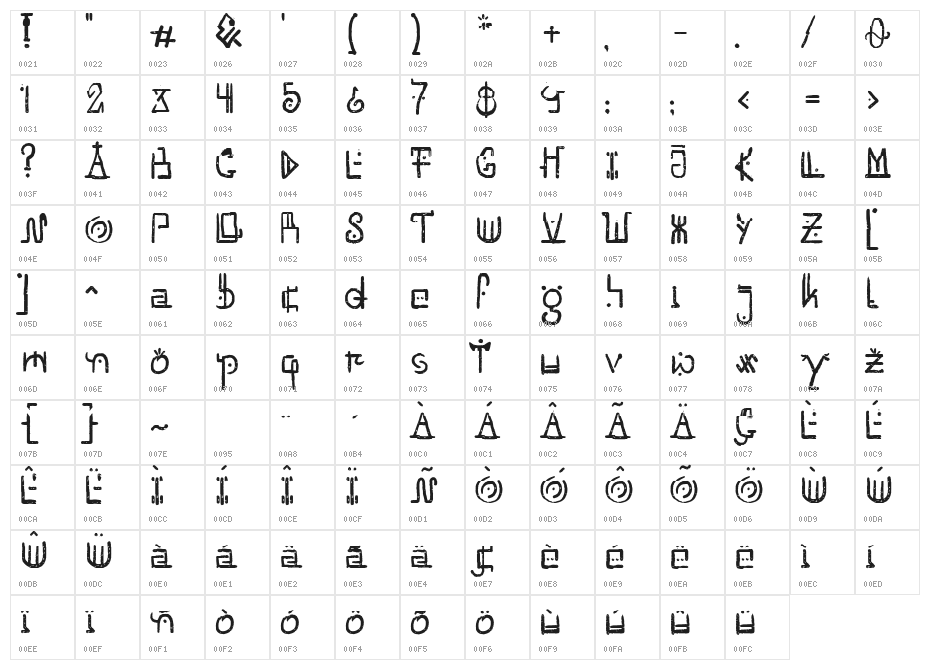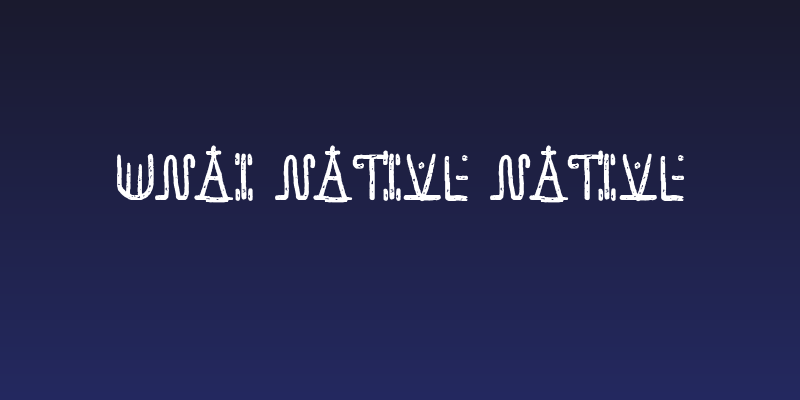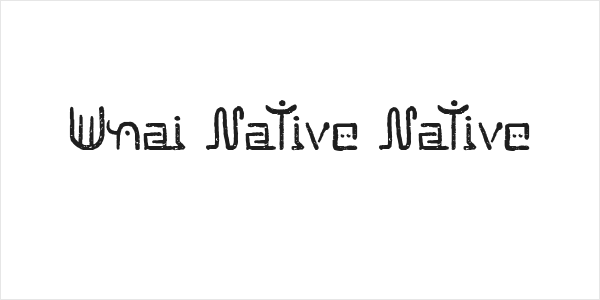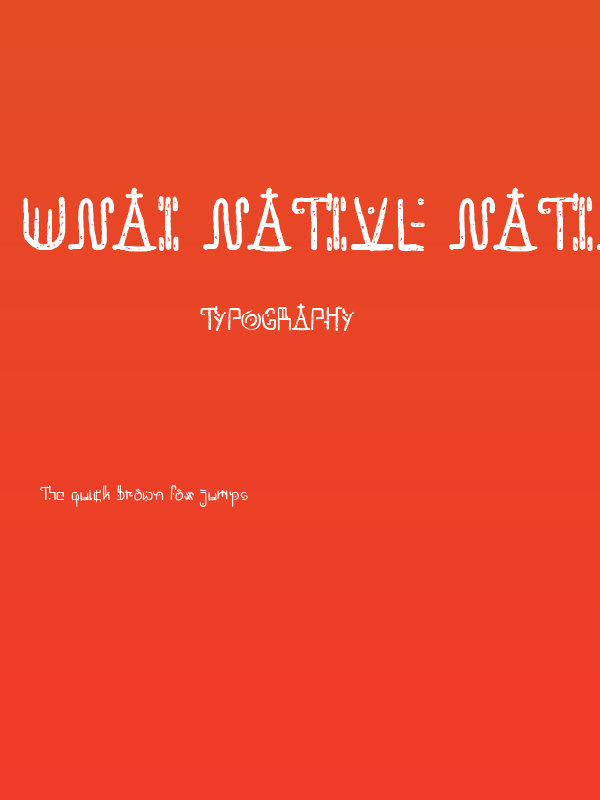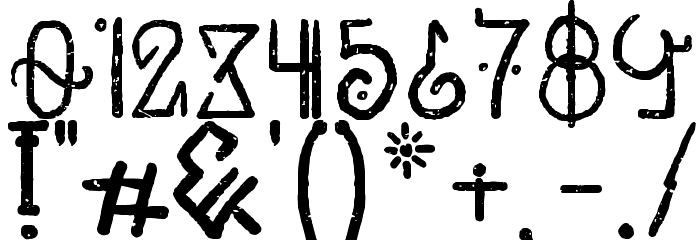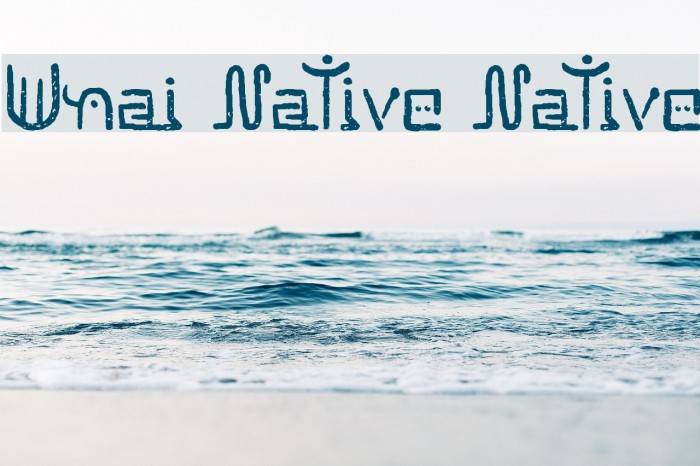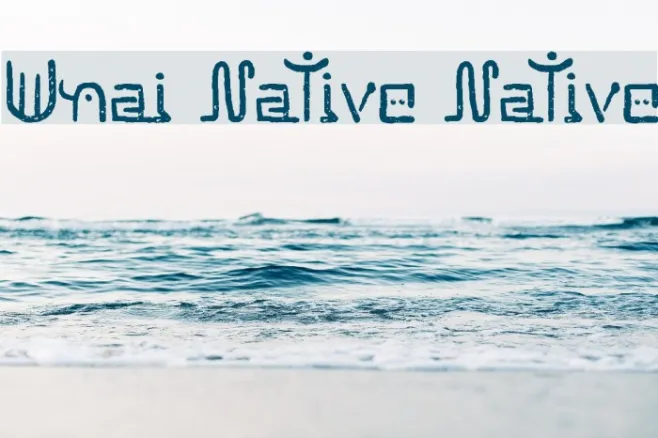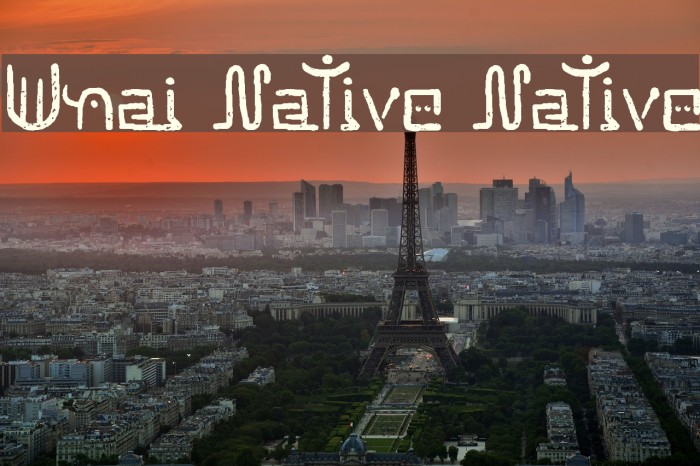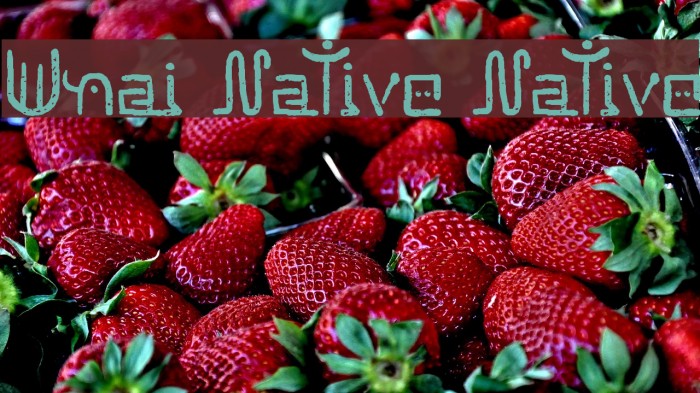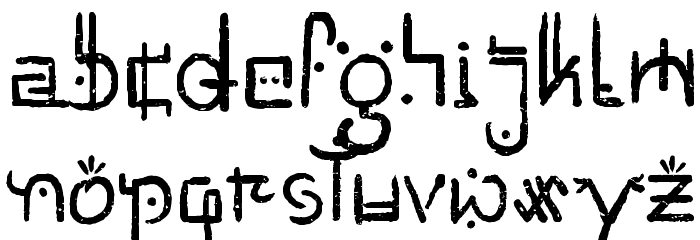
Unai Native Native Font
Unai Native Native Description
This font features a unique and artistic style, characterized by its bold and irregular shapes. Each letter is crafted with a playful and creative touch, incorporating elements that resemble ancient or tribal symbols. The uppercase letters have a strong presence with geometric influences, while the lowercase letters maintain a whimsical and fluid form. Numbers and special characters follow the same artistic theme, adding to the overall cohesive look. The font's texture gives it a hand-drawn appearance, making it stand out in any design.
| Use Case | Logos, Posters, Artistic Branding |
| Proposed Projects | Ideal for projects that require a creative and unique touch, such as posters, album covers, or branding for artistic ventures. |